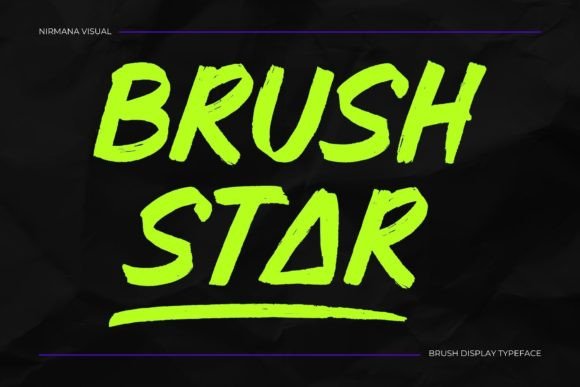
Brush Star Font: Modern Display Typography for Web Designers
As a web designer, choosing the right font can make or break your project’s visual impact. Brush Star, a Dry Brush Display font, brings a unique blend of elegance and professionalism that stands out in digital spaces. Whether you're crafting a hero headline for a landing page or designing a logo for a boutique brand, this Display font is built to elevate your typography game.
Brush Star for Creative Portfolios and Brand Identity
For creative professionals like designers, artists, and photographers, Brush Star is an excellent choice for portfolio headers and branding elements. Its dry brush texture gives it a handcrafted feel while maintaining a clean and modern aesthetic. This duality allows it to communicate both creativity and credibility — two essential traits for any design-focused website.
In portfolio sites, using Brush Star as the primary header font helps establish a strong first impression. It draws attention with its expressive strokes and subtle imperfections, making your work look more intentional and human. For instance, pairing it with a minimalist sans serif for body copy creates contrast without clashing, guiding the viewer’s eye naturally through your content.
Brush Star on Landing Pages and Call-to-Action Sections
When it comes to landing pages, every element must serve a purpose — especially your typography. Brush Star shines in title sections where you want to grab attention quickly. Its bold, confident presence makes it ideal for headlines and call-to-action (CTA) buttons, particularly when used in short phrases.
On CTA areas, readability is key. While Brush Star is a decorative display font, it maintains enough clarity to be effective even at smaller sizes. Just ensure sufficient contrast against your background. A dark version of the font on a light background works best for accessibility and visual hierarchy.
Brush Star in Online Stores and Product Banners
E-commerce platforms thrive on visual appeal and trust. Brush Star can help create a premium feel for product banners, sale announcements, and category headers. It adds a touch of sophistication that aligns well with fashion, lifestyle, and luxury brands.
- Use it for clothing store titles to evoke a sense of style and uniqueness.
- Apply it to packaging mockups or promotional banners to stand out in crowded feeds.
- Pair it with a simple sans serif for pricing text to balance creativity with legibility.
Its versatility also makes it suitable for themed online shops — whether you’re selling vintage-inspired items or contemporary designs, Brush Star adapts to reflect your brand tone.
Brush Star for Editorial Design and Magazine Layouts
Magazines and editorial websites often require fonts that are both stylish and readable. Brush Star fits perfectly into section headings and pull quotes. The dry brush effect gives it a tactile, artisanal quality that enhances the storytelling aspect of your content.
Consider using it for feature article headers or special promotions. Just be cautious not to overuse it in long blocks of text. As a Display font, it performs better in short bursts rather than dense paragraphs. Pairing it with a clean serif or sans serif typeface for body copy ensures a smooth reading experience.
Brush Star in Logo Design and Branding Assets
Logos are the face of a brand. Choosing the right Fonts can set the tone for everything from color schemes to user interactions. Brush Star offers a fresh take on display typography, blending the organic feel of a script with the structure of a solid Display font.
It’s especially effective for logos targeting creative industries such as art, design, beauty, or wellness. The soft edges and natural flow convey approachability, while the professional weight suggests reliability. This balance is crucial for building brand trust in the early stages of customer engagement.
When creating digital brand kits, always check if Brush Star includes variations like bold, italic, or condensed styles. These options allow for more flexibility in designing consistent visual identities across different mediums like social media, email templates, and app interfaces.
Brush Star for Social Media Graphics and Banners
Social media is all about quick, impactful visuals. Brush Star is a go-to Display font for Instagram banners, Facebook ads, and Twitter headers. It adds personality to your graphics without overwhelming the message.
Because it’s a Fonts designed for display use, it works best in large sizes. When used on image overlays, ensure there's enough white space around the text so it doesn’t get lost. A common mistake is forcing it into small text fields — avoid that by reserving it for headlines and taglines only.
If you’re creating templates for multiple clients, consider including Brush Star in your toolkit. It’s a great option for those who want something memorable but still polished. Just remember to pair it carefully with supporting Fonts to maintain harmony in your layout.
Imagine using Brush Star in a digital magazine redesign — it could bring a fresh energy to issue headers or article teasers. Or picture it on a product launch page, where it serves as the main title and reinforces the event’s exclusivity and creativity.
By incorporating Brush Star into key brand-facing elements, you create a stronger emotional connection with your audience. It’s not just a Fonts — it’s a design decision that shapes perception and loyalty.